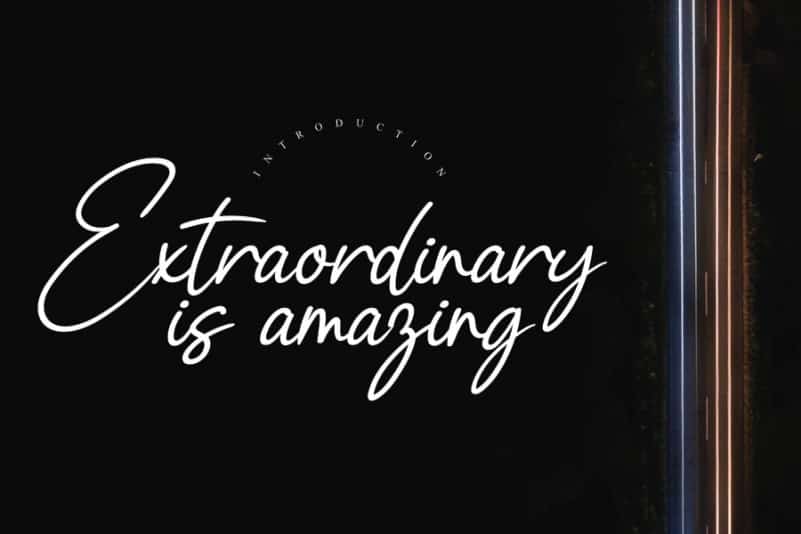
Mallanitan Handwritten Font
Mallanitan Handwritten Font is a unique, simple, and friendly handwritten font. Fall in love with its incredibly flowing and versatile style and use it to create gorgeous wedding invitations, beautiful stationary art, eye-catching social media posts, and much more!
The latest style letters are perfect for wall displays, wedding invitations, social media post logos, advertisements, product packaging, product designs, labels, photography, watermarks, invitations, stationery, and any project that requires taste handwriting.